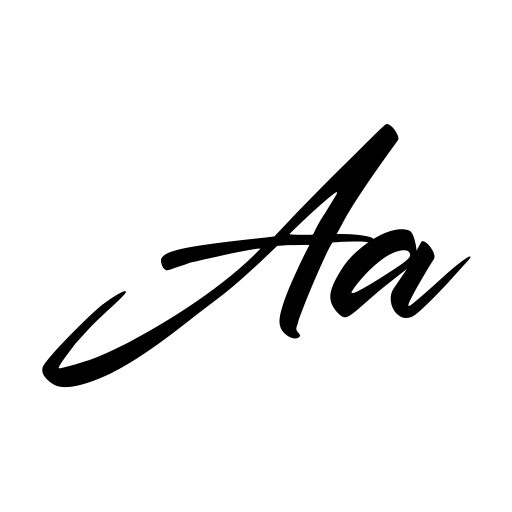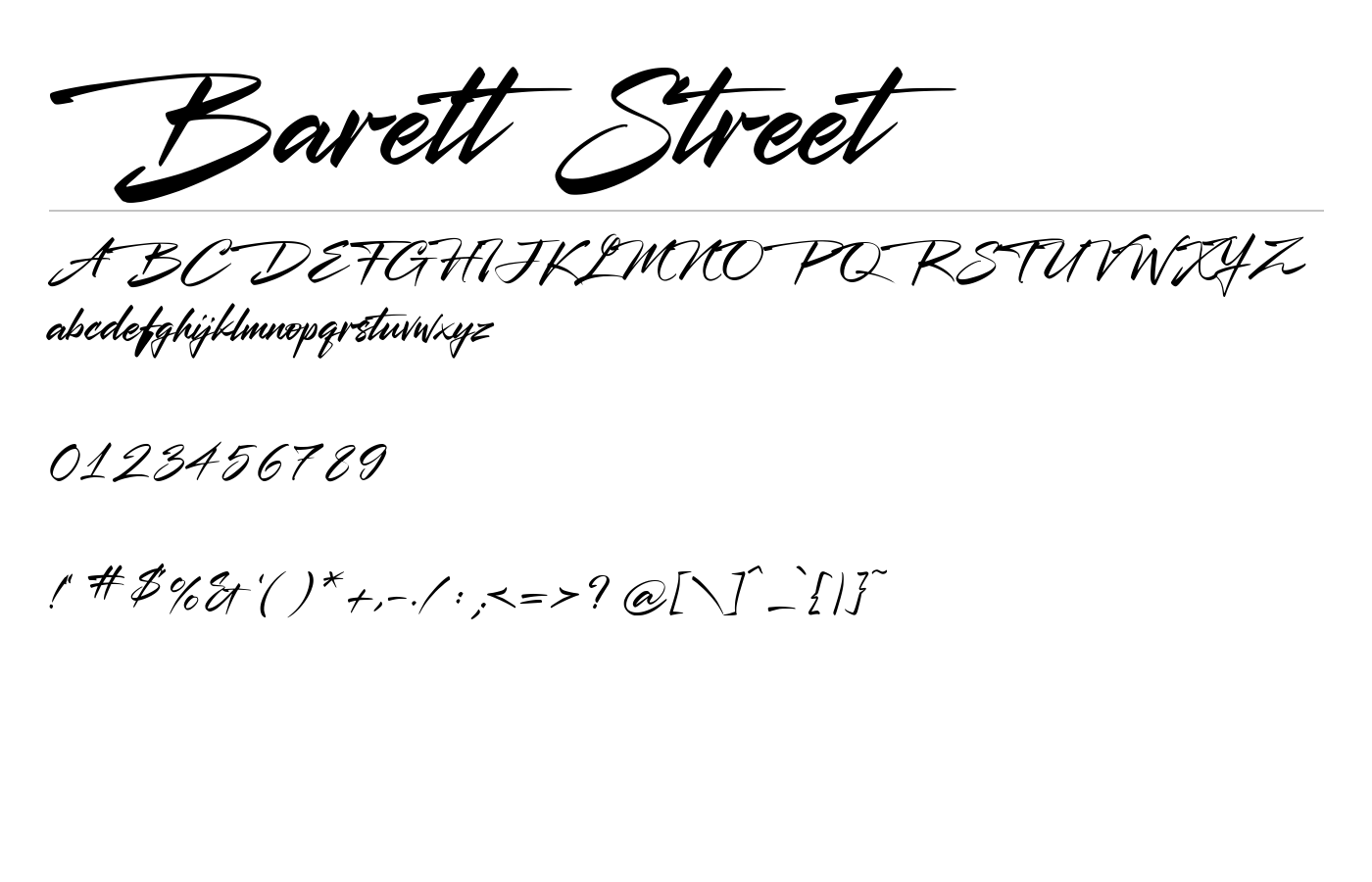
Barett Street is an elegant script font with a modern calligraphic style, featuring fluid strokes and a dynamic, slightly casual flair. Its varied line thickness and italicized form convey a sense of creativity and sophistication, making it perfect for branding, fashion, invitations, and headlines where a stylish personal touch is desired. This font adds a lively, artistic personality while maintaining readability, ideal for designs that need a balance of elegance and expressiveness.
Barett Street Font
About Barett Street Font